Ascender
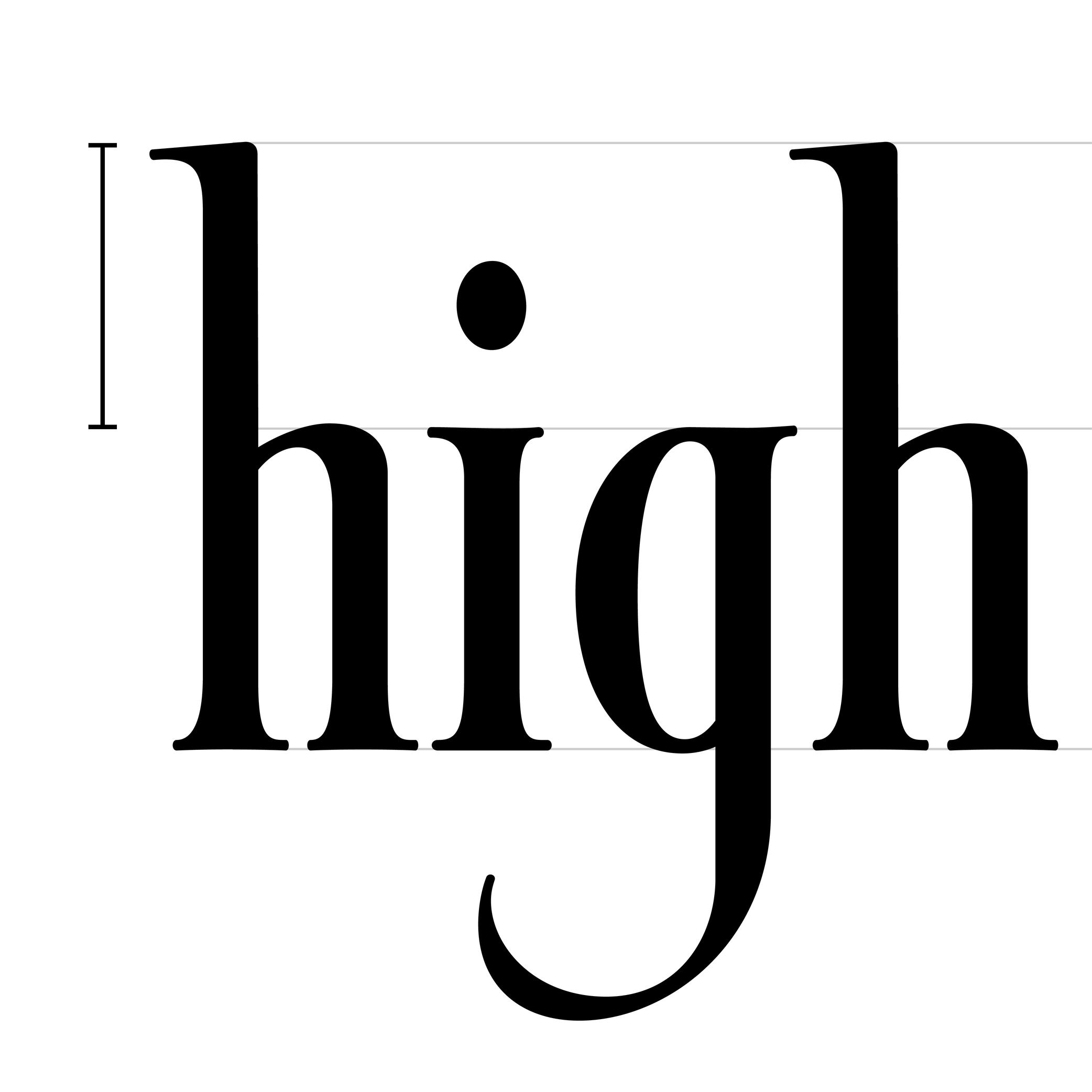
The parts of lowercase letters that go above the x-height level (such as b, d or h) are called “ascenders.”
On the opposite side of the x-height, the parts going below the baseline are descenders.
Both don’t necessarily need to have the same length. In general, descenders are shorter than ascenders.
Attention: do not confuse ascender height with the capital height (or cap height). Ascenders in Latin script are commonly taller than capital letters.